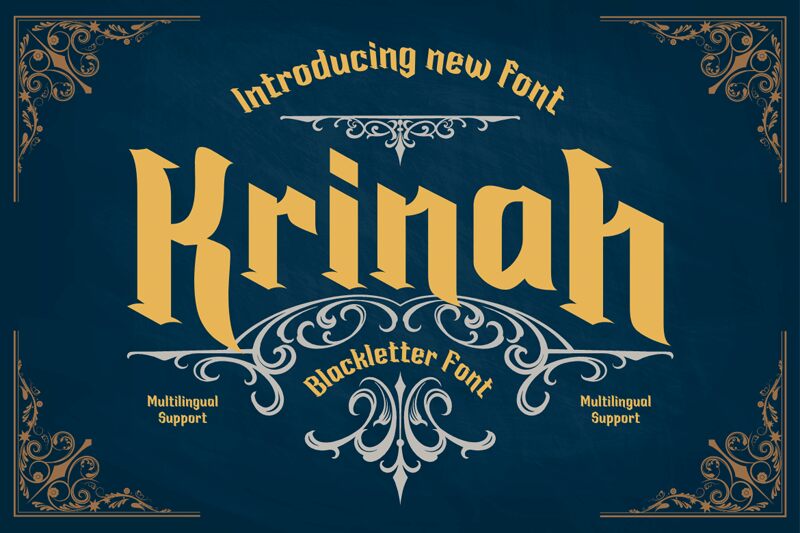
Krinah-Regular
For any project that calls for a gothic touch, the Krinah font is ideal. With its modern style and semi-bold weight, Krinah is perfect for creating a unique and edgy look.
Whether you're designing a logo, label, badge, or even working on your newest music video or movie, this font will add that extra touch of darkness and sophistication. The Blackletter style of Krinah is particularly suited for labels, vintage posters, and other items that require a professional-grade font with a gothic flair. Its variety of lovely and harmonious forms allows you to choose the perfect word for your project every time.
Unleash the power of Krinah for your creative endeavors!